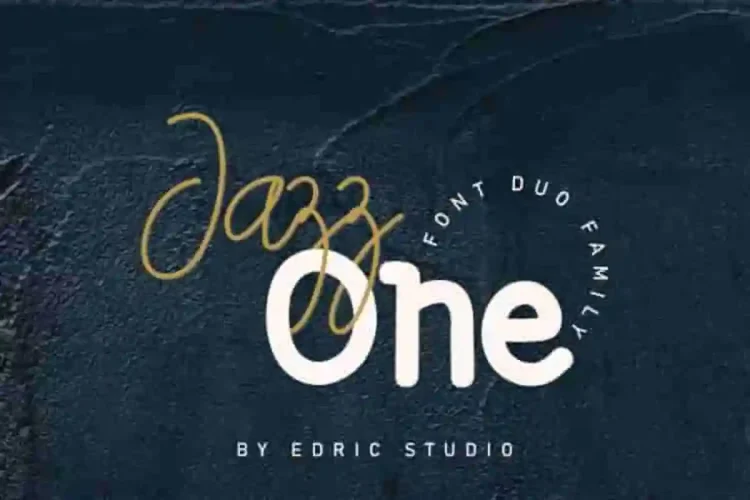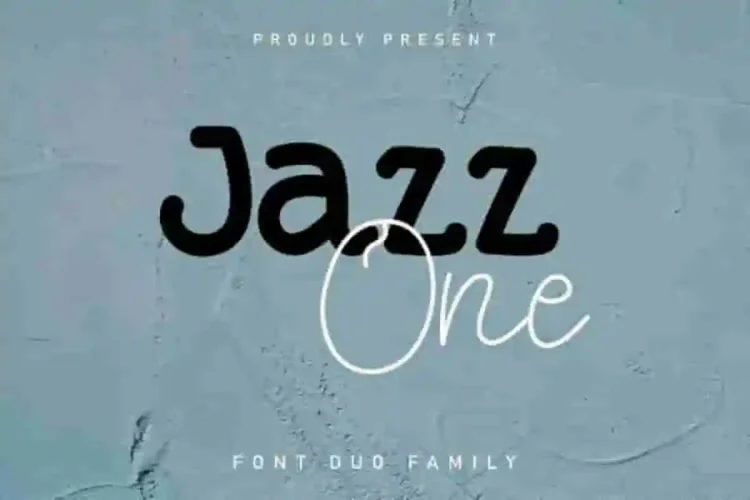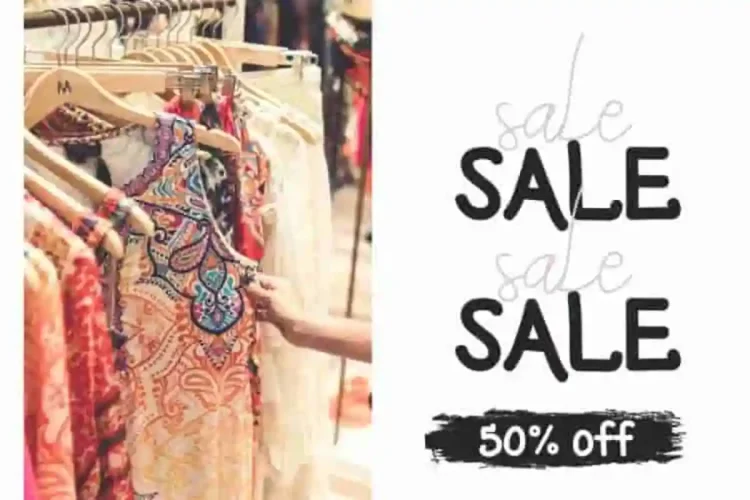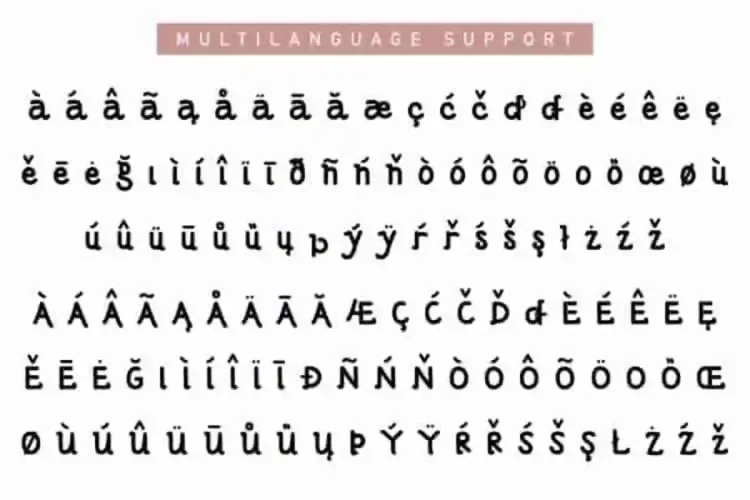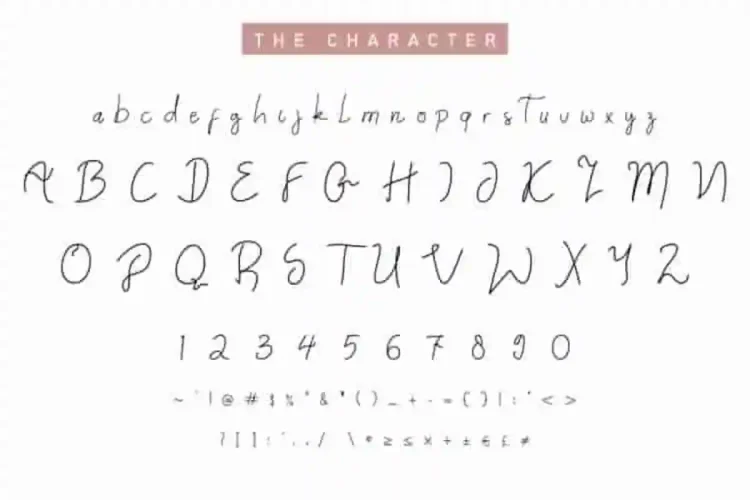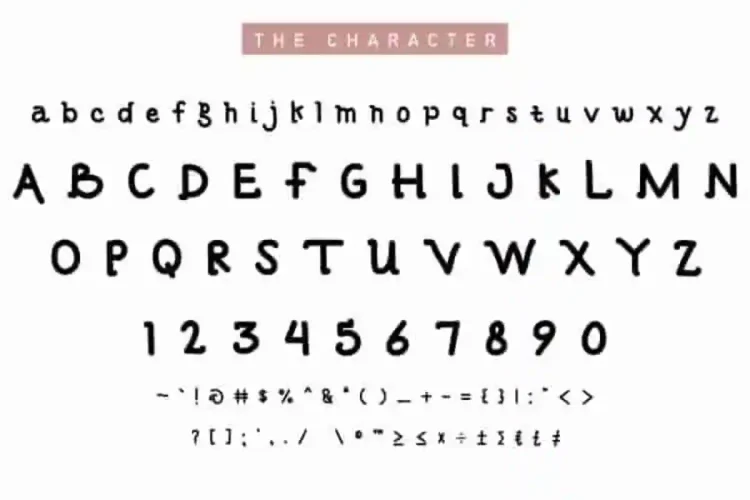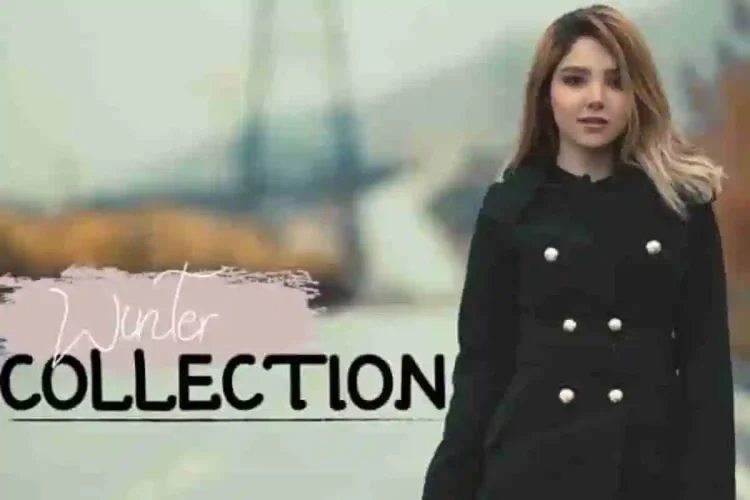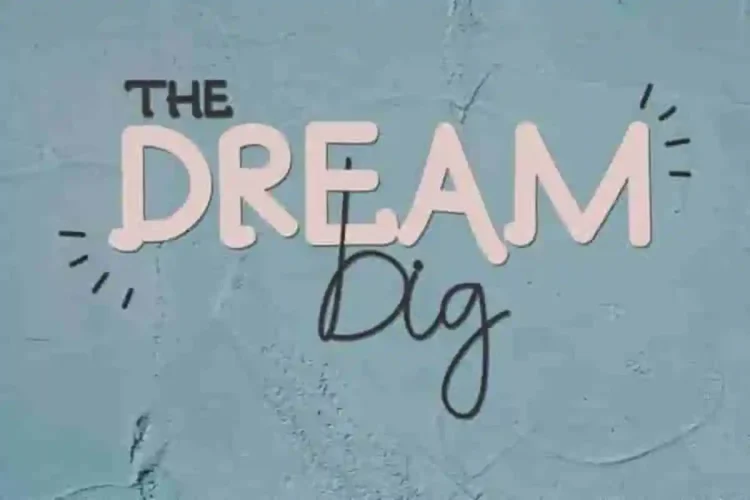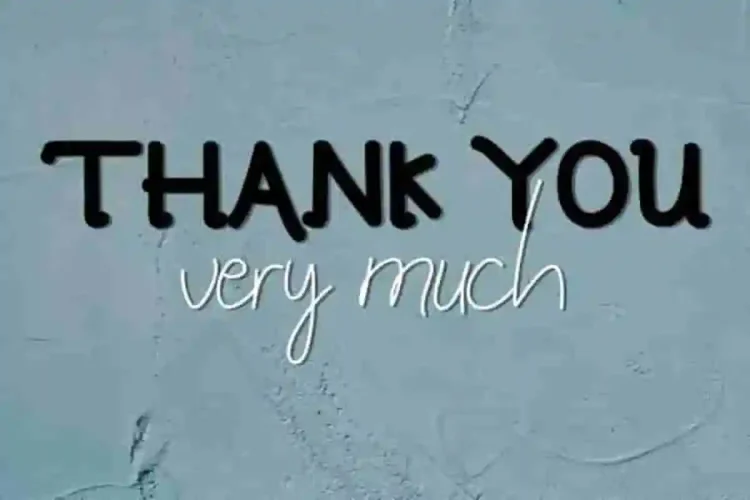
Jazz one Brush Script Font Duo
Our newest creation : Jazz one Brush Script Font Duo
This is a Font Duo Family, handcrafted from our Studio here in Indonesia. The artists/designers of this beautiful tyeface are Saila, Yasri and Suci.
Jazz one Brush Script Font Duo is an exclusive font family with two different styles. This font has a stunning characters set, perfectly managed with well spaced and kerning. The theme style of this font will elegant,  vintage, stylish, sophisticated and classic handwriting style.
Jazz one Brush Script Font Duo will be great for any projects including : branding, logo, stationery, business card, signage, flyer, brochure etc. Almost all industries will be match for this typeface: wedding, events, real estate, architect, law firm, florist, gardening, makeup artist, travel, hotel, musician etc.